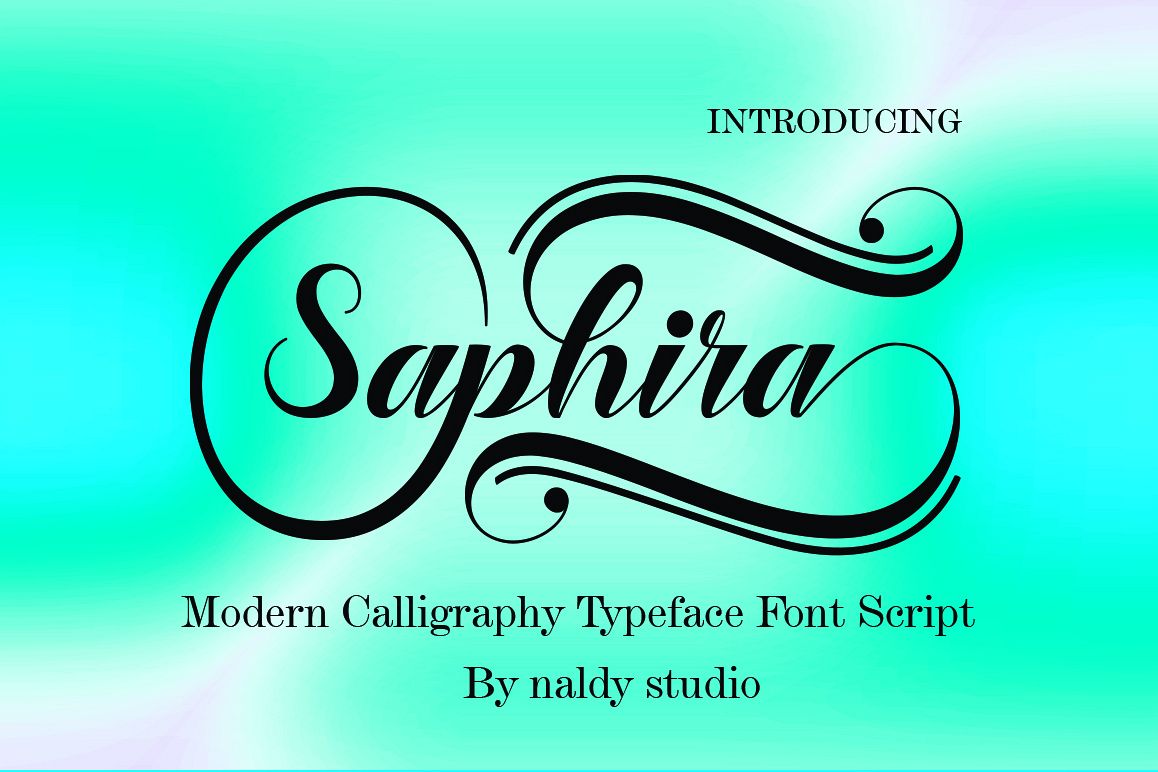
Saphira
Saphira Modern Calligraphy. This font was designed by handwriting, and it has a modern and unique forms of calligraphy, the writing style is very natural.
The Features of this fonts is;
* Standart ligatures
* Stylistic Alternates
* Contextual Alternates
* Stylistic sets